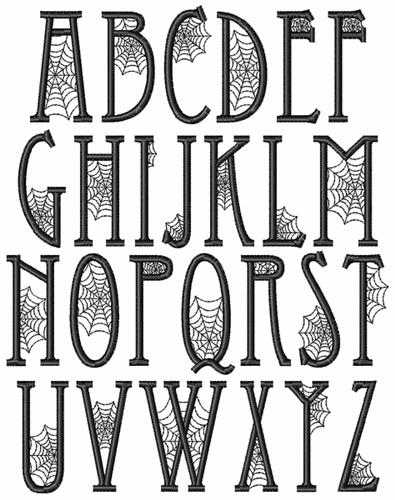
Embroidery Patterns is happy to present Web Font machine embroidery font which has The outlined style of this machine embroidery font features bold letters with playful spider web designs, ideal for Halloween-themed projects on decorations or apparel. Available in PES, DST, and 11 other formats. included. If you would like to view more embroidery fonts and alphabets please search our embroidery fonts page.